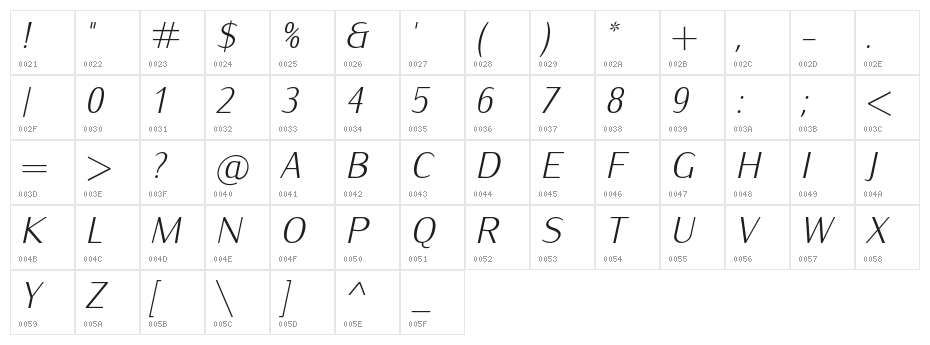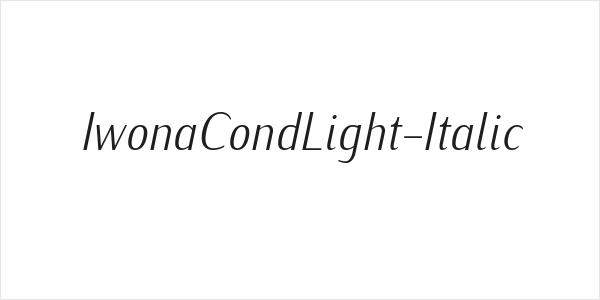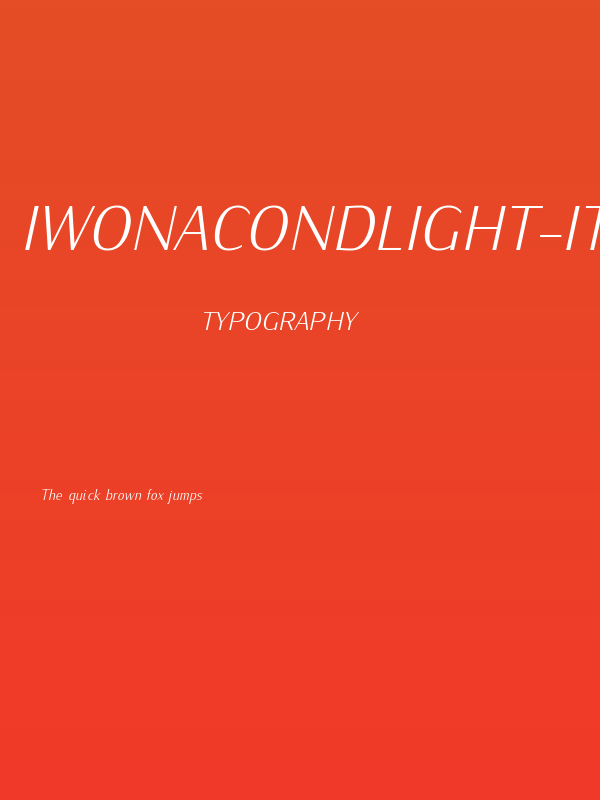
IwonaCondLight-Italic Font
IwonaCondLight-Italic Description
This font features a sleek and elegant design with a light weight and italic style. The characters are slightly condensed, giving it a refined and sophisticated appearance. The strokes are smooth and fluid, with a moderate contrast between thick and thin lines, enhancing its readability while maintaining a stylish look. The font's overall aesthetic is modern and clean, making it versatile for various design applications. The spacing between characters is normal, ensuring clarity and legibility across different text sizes.
| Proposed Projects | Ideal for fashion magazines, elegant branding, wedding invitations, and upscale product packaging. |